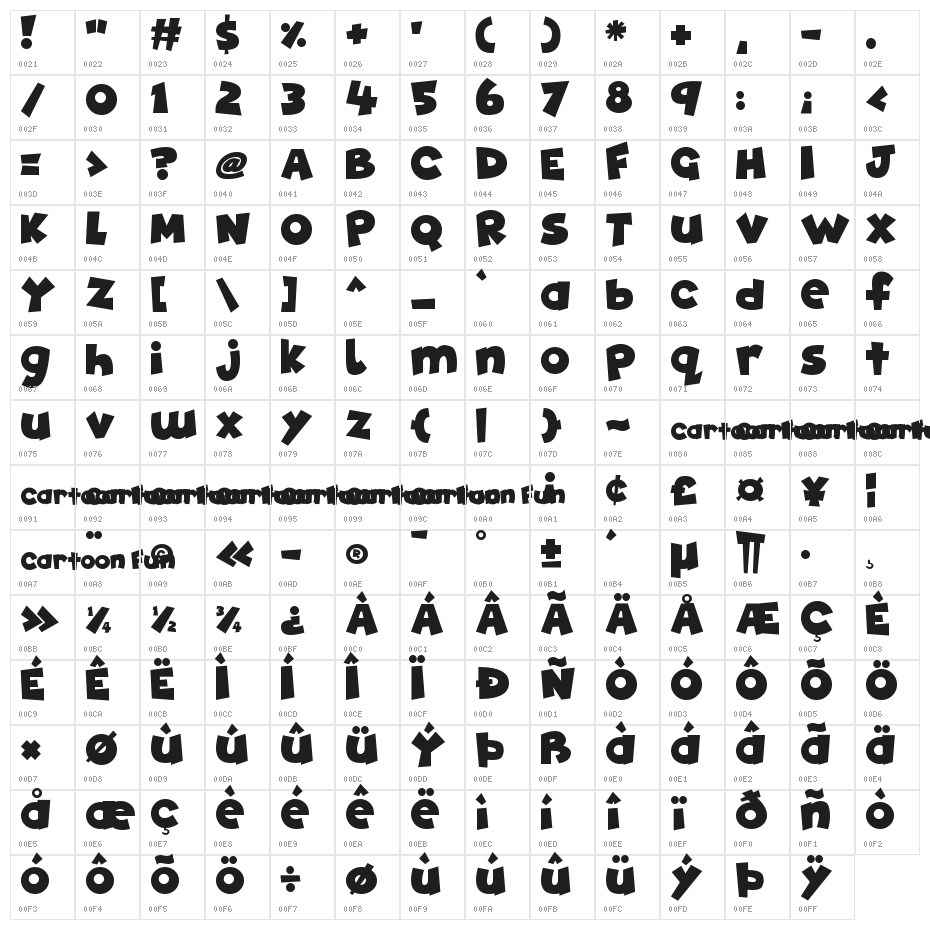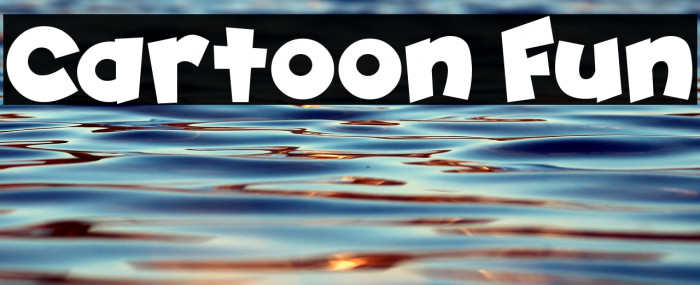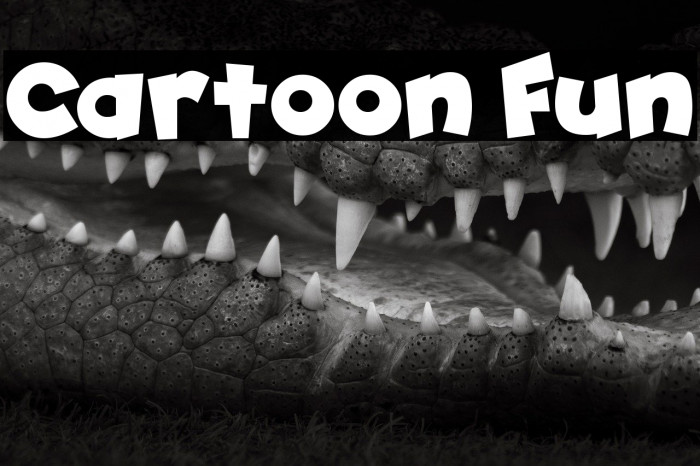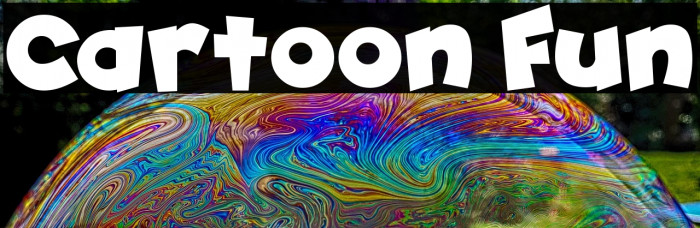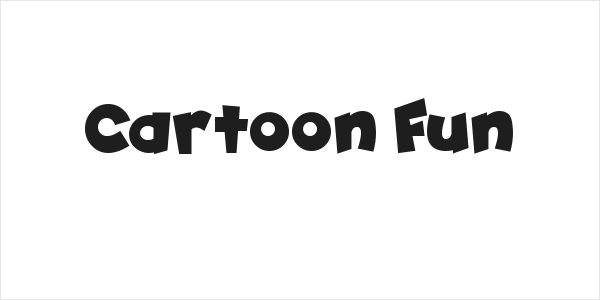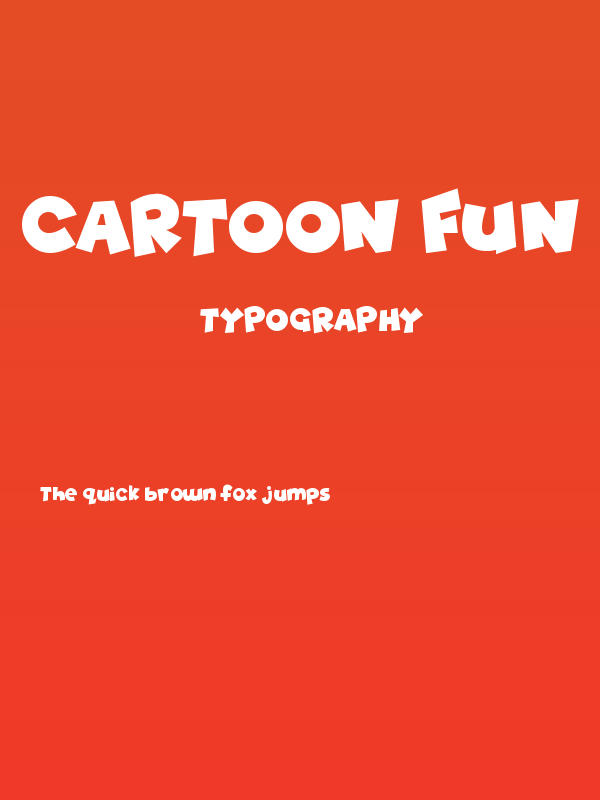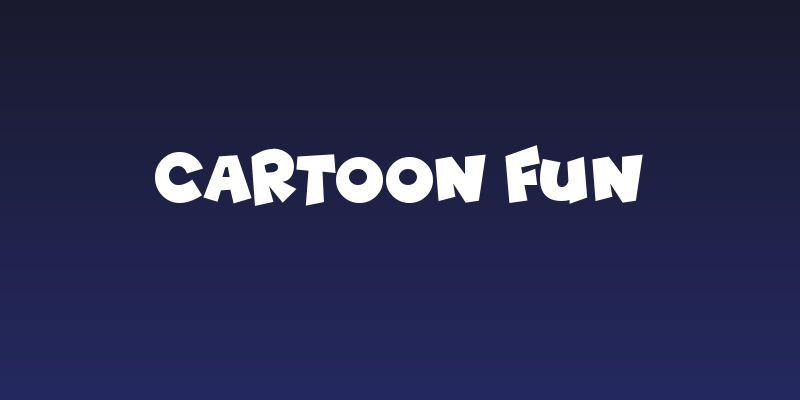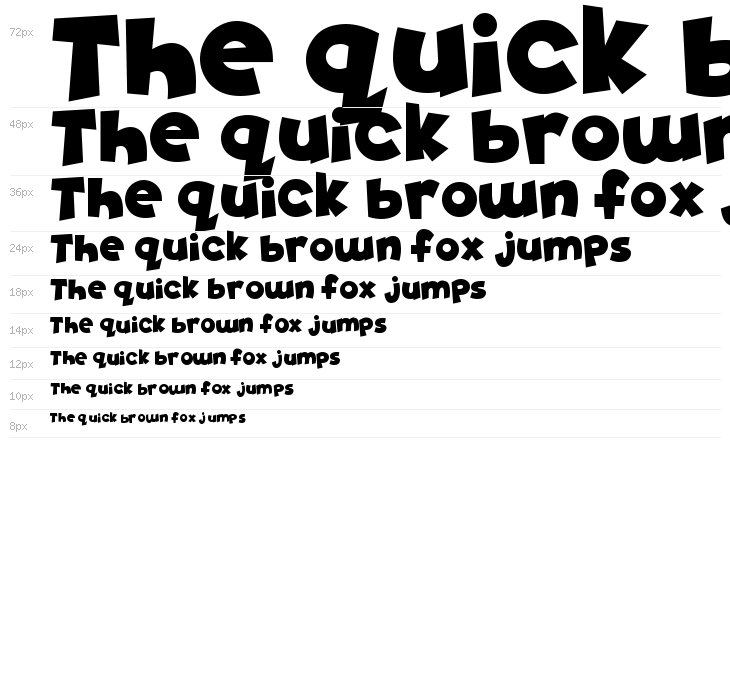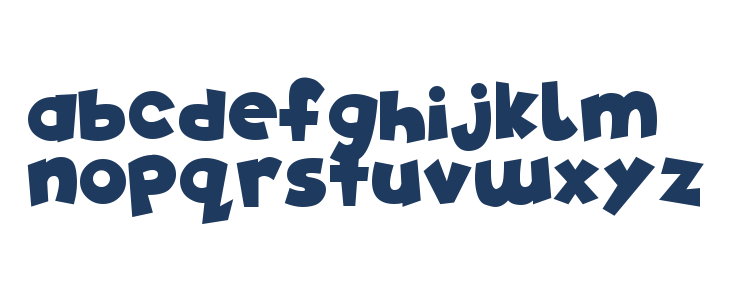
Cartoon Fun Font
Cartoon Fun Description
This playful and bold font exudes a sense of fun and whimsy, making it perfect for creative projects. The letters are characterized by their thick, uneven strokes and exaggerated curves, giving them a cartoonish appearance. The uppercase and lowercase letters maintain a consistent style, with a slight tilt and irregularity that adds to their charm. Numbers and special characters follow the same lively design, ensuring a cohesive look across all text elements. The font's unique style is eye-catching and ideal for projects that require a touch of humor and creativity.
| Overall Style | Cartoonish, Playful |
| Proposed Projects | Ideal for children's books, comic strips, playful branding, and party invitations. |